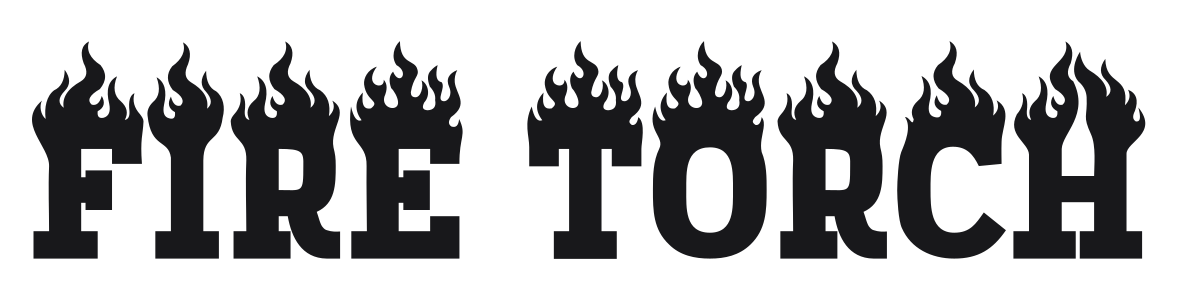
Fire Torch
Fire Torch is a bold serif display font where every character is topped with a crown of flames. The underlying letters are heavy and wide with confident serif construction, giving the fire decoration a solid structure to rise from. Built for headlines, posters, and anything that needs to read as hot, intense, or extreme.